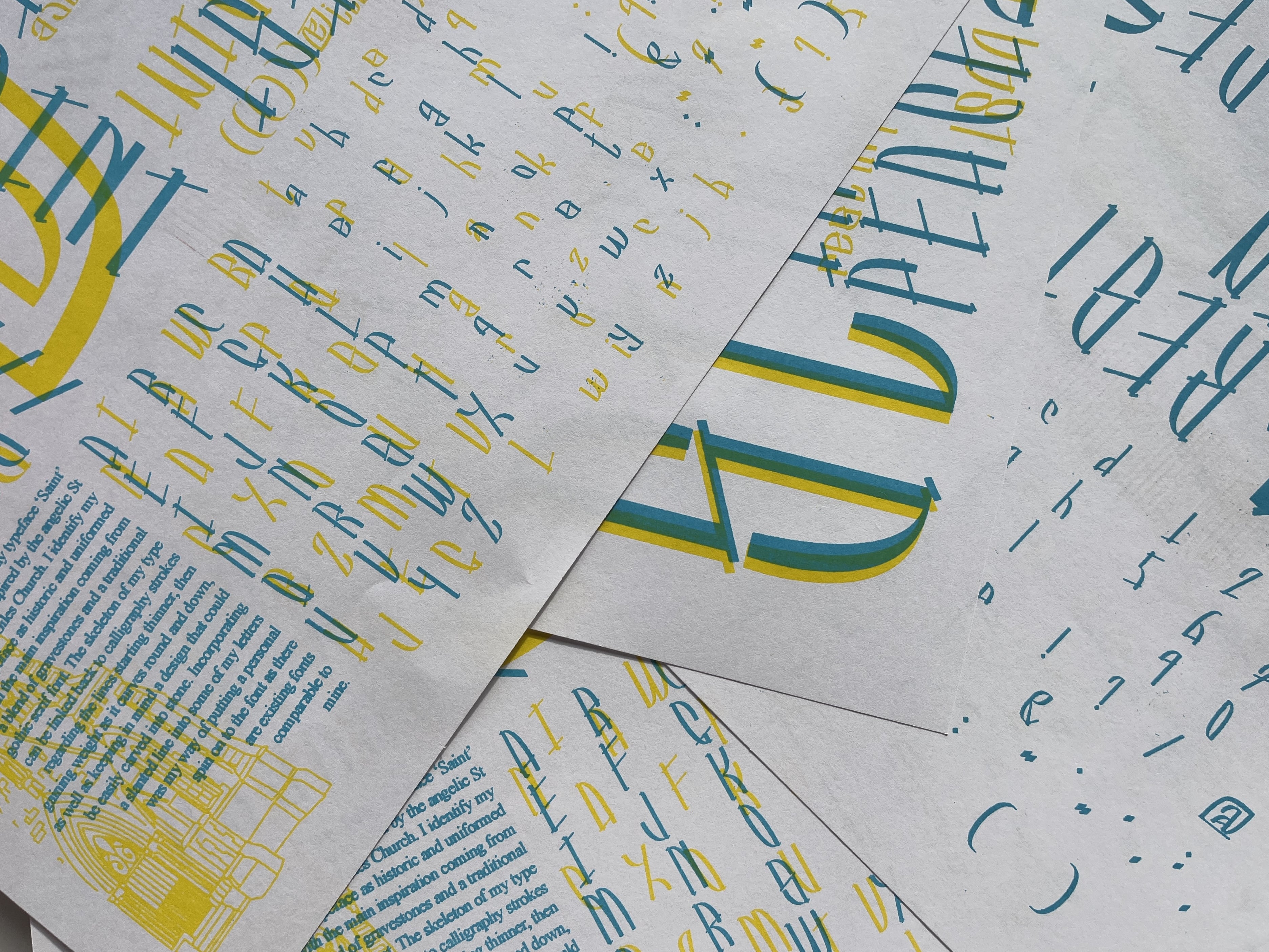
My display typeface 'Saint' is inspired by the angelic St Giles Church. I identify my typeface as historic and uniformed with the main inspiration coming from a blend of gravestones and a traditional gothic serif font. The skeleton of my type can be linked back to calligraphy strokes regarding the lines starting thinner, then gaining weight as it curves round and down, as well as keeping in mind a design that could be easily carved into stone. Incorporating a slanted line into some of my letters was my way of putting a personal spin on to the font as there are existing fonts comparable to mine.